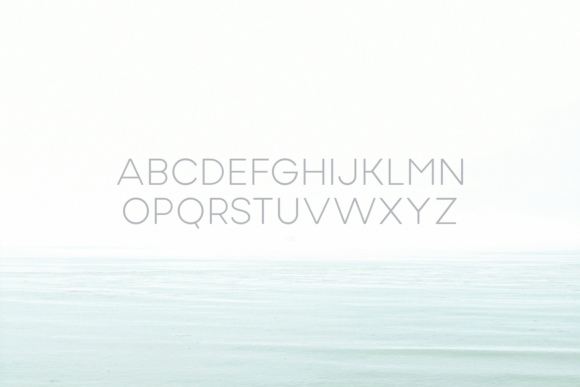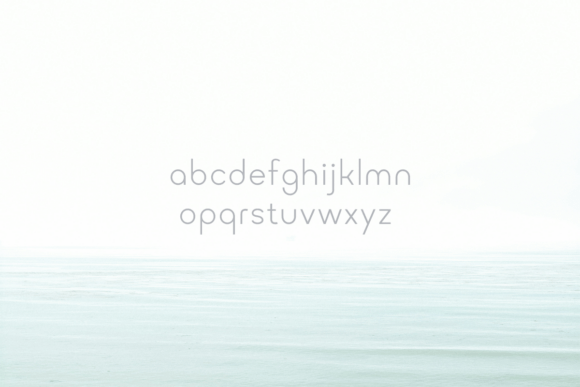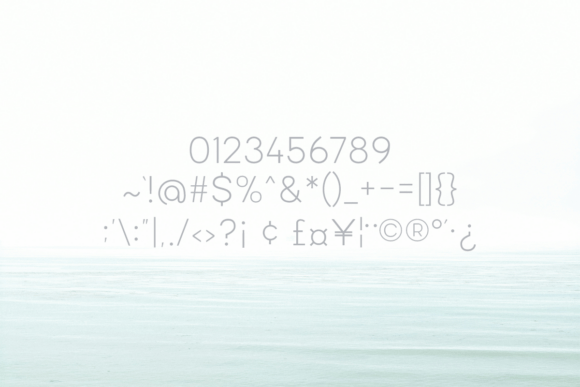
Introduction to Kenala Light Font
You know that feeling when you’re working on a creative project, and you just can’t seem to find the right font to bring your design to life? It’s like the missing piece of a puzzle, and it can make all the difference between a good design and a great one. That’s where the Kenala Light Font comes in – a remarkably clean sans font that is quietly sophisticated and elegantly minimalistic.
As a valuable resource for designers, the Kenala Light Font is a high-quality design tool that effortlessly complements a broad range of projects, infusing a unique touch of style to your creative concepts. With its versatile design, transparent background, and free download option, it’s no wonder that this font has become a go-to choice for designers looking for a calm, contemporary feel.
Key Features of Kenala Light Font
- High-quality design resource ideal for creative projects, offering a professional and modern look.
- Features a clean and elegant design, making it perfect for use in logos, branding materials, and other visual identity projects.
- Designed to be highly legible and versatile, with a clear and readable font style suitable for both digital and print applications.
- Available in a single weight, making it easy to use and integrate into various design elements without worrying about font pairing or matching.
Honest Review: Kenala Light Font
I recently stumbled upon the Kenala Light Font while searching for a high-quality design resource for my creative project. I was pleasantly surprised by the clean and modern aesthetic it brings to the table.
- ✨ The font’s transparent background makes it incredibly versatile and easy to use in various design contexts.
- ✨ The font is highly legible, even at small sizes, making it perfect for digital applications like mobile apps and websites.
While the Kenala Light Font excels in many areas, I did encounter a few limitations:
- ⚠️ The font’s x-height could be slightly larger for better readability in print materials.
- ⚠️ There are no bold or italic variants available, which might limit its use in certain design scenarios.
Overall, I’m impressed with the Kenala Light Font. Its modern design, high quality, and transparent background make it a valuable addition to any designer’s toolkit. While it may have some limitations, it’s definitely worth checking out for your next creative project.
Getting the Most Out of Kenala Light Font
To maximize the potential of the Kenala Light Font, use it for titles, headings, and body text in your designs. Experiment with different font sizes, colors, and combinations to create visually appealing designs.
The Kenala Light Font is suitable for various design projects, including:
- Blog posts and articles
- Business cards and flyers
- Presentations and reports